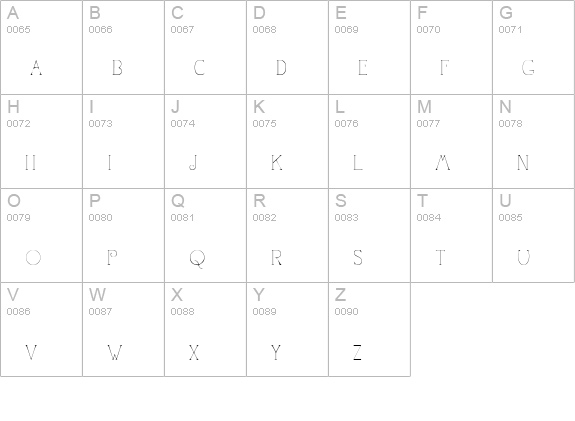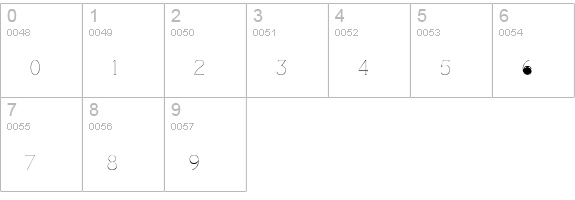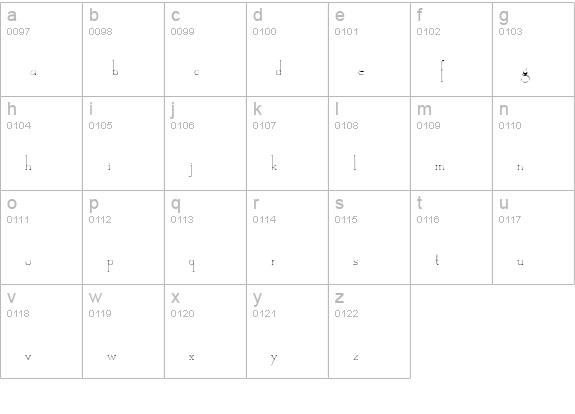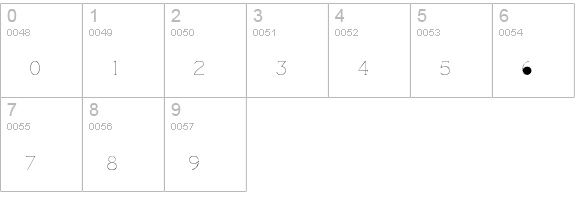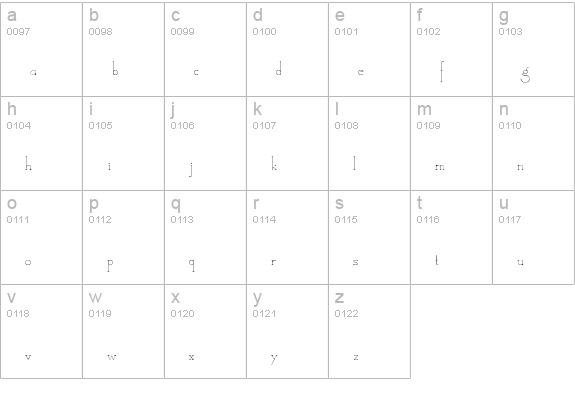
Camelot DeNada Font Details
Camelot DeNada font is a stunning display typeface that exudes elegance and sophistication. With its unique mix of traditional and modern elements, this font is perfect for adding a touch of charm to any design project. The graceful curves and intricate details of Camelot DeNada make it a versatile choice for a wide range of applications, from branding and advertising to invitations and packaging. And the best part? Camelot DeNada font is completely free to download at FontsMarket.com! That's right, you can enhance your projects with this beautiful font without spending a dime. So why wait? Elevate your designs with the timeless beauty of Camelot DeNada today.